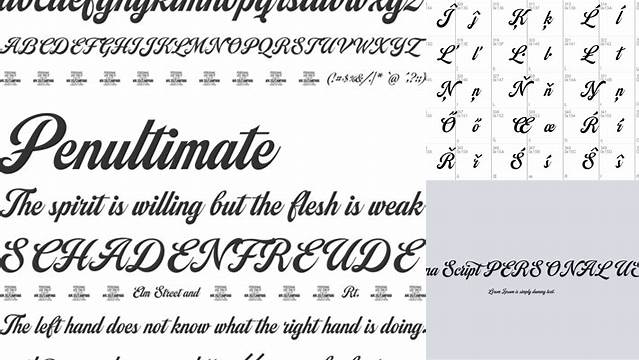
Hey guys! Are you on the hunt for that perfect font to add a touch of elegance and personality to your projects? Look no further! In this article, we're diving deep into the world of the Campana Script font, a beautiful typeface that can elevate your designs. We'll explore what makes it so special, where you can find it for free personal use, and how to make the most of it in your creative endeavors. So, buckle up and get ready to unleash your inner font enthusiast!
What Makes Campana Script So Captivating?
When it comes to selecting the right font, Campana Script stands out for its graceful curves and flowing lines. It exudes a sense of sophistication and charm, making it an excellent choice for a wide range of applications. Think wedding invitations, greeting cards, logos, and even website headers – Campana Script can add that touch of je ne sais quoi that makes your designs truly memorable. Its distinctive letterforms lend a handmade feel, making your projects appear both polished and personal. The delicate strokes and elegant flourishes create a visual harmony that is pleasing to the eye, ensuring that your message is conveyed with style and grace. If you’re aiming for a look that's both classic and contemporary, Campana Script strikes that balance beautifully. It's a versatile font that can adapt to various themes and aesthetics, making it a staple in any designer's toolkit. Whether you're crafting a vintage-inspired design or a modern, minimalist layout, Campana Script seamlessly integrates, enhancing the overall visual appeal. Its readability is also a key asset, ensuring that your text remains clear and legible while still maintaining its elegant flair. This font truly shines in projects where you want to convey a sense of refinement and attention to detail.
Unleashing Your Creativity: How to Use Campana Script Effectively
So, you've downloaded Campana Script – awesome! Now, how do you actually use it to its full potential? This font is incredibly versatile, but like any design element, it's all about using it strategically. One of the best ways to leverage Campana Script is in headings and titles. Its elegant flourishes instantly grab attention and add a touch of sophistication. Imagine using it for the title of a wedding invitation or the header of a blog post – it immediately sets a tone of refinement. However, keep in mind that because it is a script font, extensive bodies of text in Campana Script can become challenging to read. It's best to reserve it for shorter phrases or titles to ensure optimal readability. Pairing Campana Script with a simpler, sans-serif font for body text can create a visually appealing contrast. Think of using a clean font like Open Sans or Lato for your paragraphs, allowing the Campana Script in your headings to truly shine. Color is another key consideration. Campana Script often looks stunning in classic colors like black, gold, or deep blues, but don't be afraid to experiment! Consider the overall aesthetic of your project and choose colors that complement the font's elegance. In terms of size, ensure that your Campana Script text is large enough to be easily legible, but not so large that it overwhelms the design. Finding the right balance will make your projects look polished and professional. Remember, the key is to let the font's inherent beauty enhance your design, not overshadow it. So, play around with different applications and see what creative magic you can conjure up!
Campana Script in Action: Project Ideas and Inspiration
Okay, let's get those creative juices flowing! You've got Campana Script in your font arsenal – now what? Let's brainstorm some amazing project ideas where this font can truly shine. Wedding invitations are a classic choice. The elegant and romantic feel of Campana Script makes it perfect for setting the tone for a special day. Imagine using it for the names of the couple, the date, and any other key details. It adds a touch of sophistication that's hard to beat. Business logos are another fantastic application. If you're working on branding for a business that wants to convey elegance, luxury, or a personal touch, Campana Script can be a game-changer. Think of businesses like boutique shops, bakeries, or event planners – the font's graceful curves can perfectly capture their brand essence. Social media graphics can also benefit from the charm of Campana Script. Use it for quote images, announcements, or promotional materials to add a touch of visual flair. Just make sure to balance it with other design elements to keep things visually harmonious. Greeting cards are another area where Campana Script excels. Whether it's for birthdays, holidays, or thank-you notes, the font adds a personal and heartfelt touch to your messages. You can even use it for journaling or scrapbooking projects, adding a touch of elegance to your memories. And don't forget website headers! A well-placed Campana Script header can instantly elevate the look and feel of your website, creating a welcoming and stylish first impression. The possibilities are truly endless, guys! So, go forth and let your creativity soar with Campana Script!
Final Thoughts: Campana Script - A Font Worth Exploring
So, there you have it, guys! Campana Script is a truly captivating font that can add a touch of elegance and personality to your designs. Its graceful curves and flowing lines make it a standout choice for a variety of projects, from wedding invitations to logos to social media graphics. And the best part? It's often available for free personal use, making it accessible to designers of all levels. We've explored what makes Campana Script so special, where you can find it, how to use it effectively, and the importance of understanding licensing terms. Now, it's your turn to unleash your creativity and see what magic you can create with this beautiful typeface. Remember, the key to using any font effectively is to consider its unique characteristics and how it can enhance your overall design. Campana Script's elegance and sophistication make it a fantastic choice for projects where you want to convey a sense of refinement and attention to detail. So, go ahead, download Campana Script, and start experimenting! Let your imagination run wild, and don't be afraid to try new things. You might just surprise yourself with the stunning designs you can create. Happy designing!